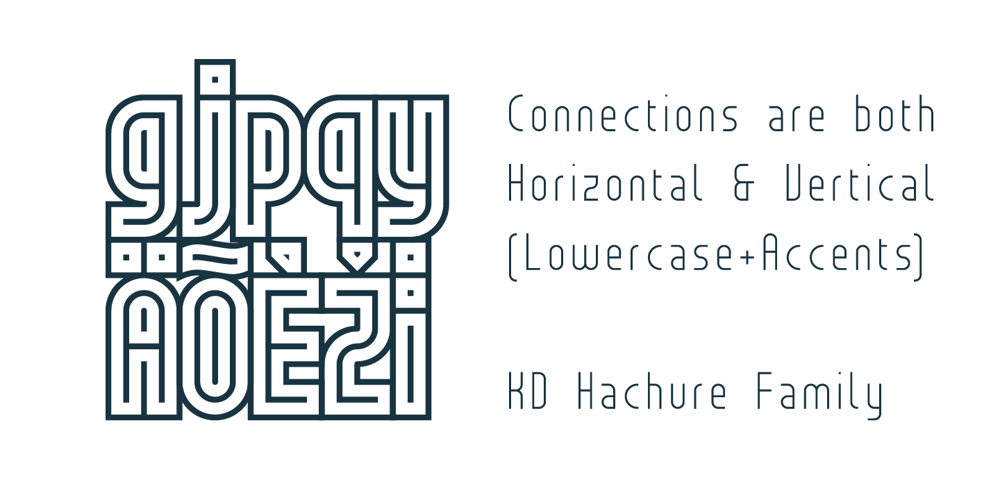
KD Hachure
KD Hachure font
KD Hachure Font Family was designed by Zhalgas Kassymkulov and published by Kassymkulov Design. KD Hachure contains 3 styles and family package options. KD Hachure is a display, geometric font with layering possibilities. Combine the two layers to achieve different color combinations or use them separately to achieve a completely different look. Kerning is optimized so that all latin letters are connected. With the default leading 120%, descenders connect with the top of accents. Set the leading to 100% manually if you want to connect descenders with the top of uppercase or ascender letters.